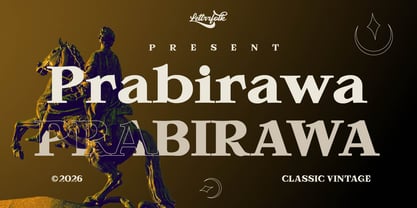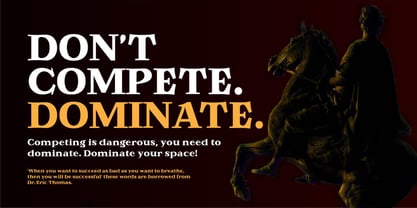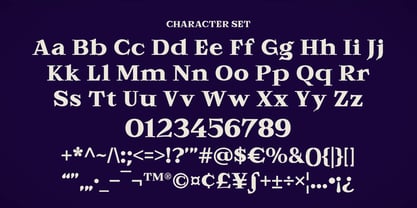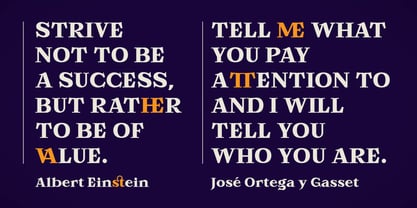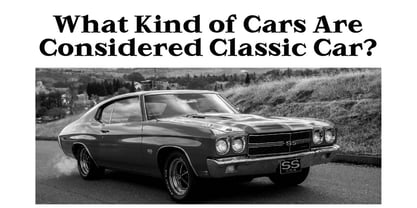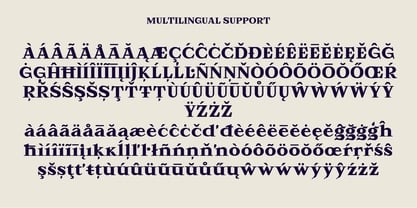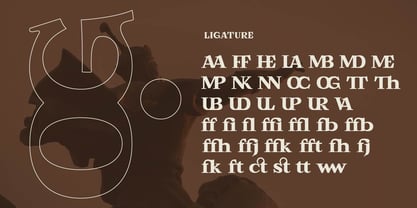
Prabirawa
Prabirawa is a bold and expressive display typeface designed to make a strong visual statement. Its confident letterforms combine a powerful presence with distinctive character, making it ideal for headlines, posters, branding, editorial layouts, packaging, apparel, and other attention-grabbing designs. Prabirawa brings a dynamic and commanding personality to typography while maintaining clear and effective forms for impactful visual communication.